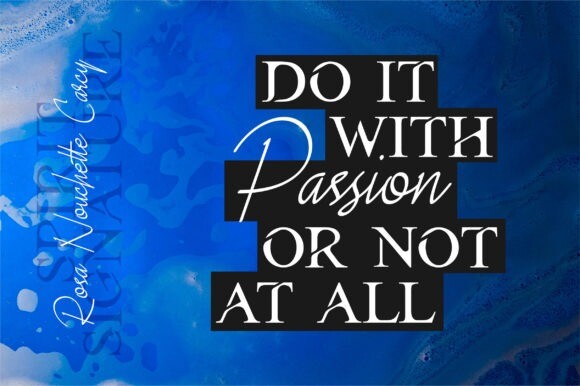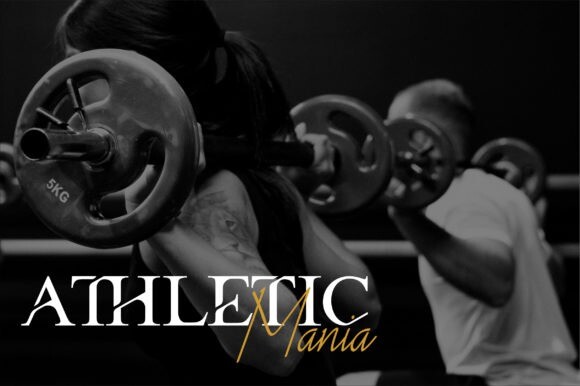
Spirit Nature Font
Spirit Nature is a grogeous duo font (serif and script). It is PUA encoded which means you can access all of the amazing glyphs and ligatures with ease!